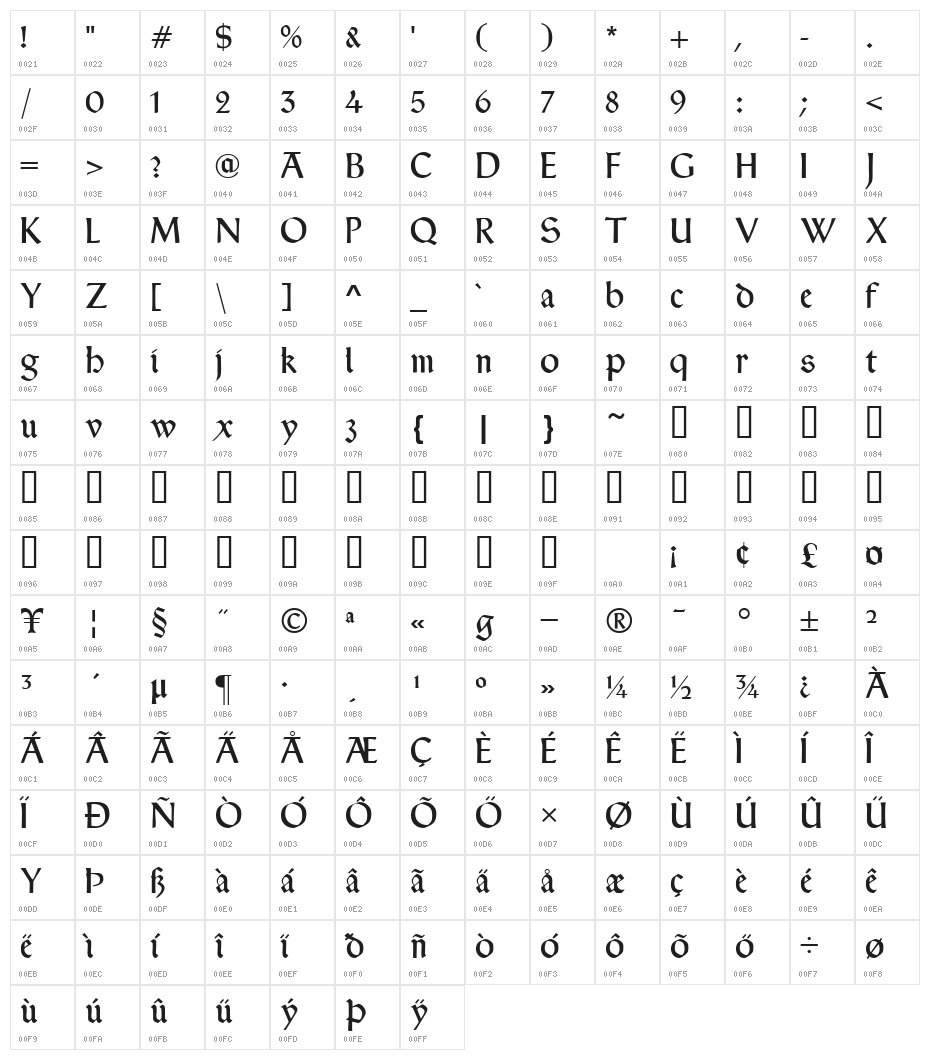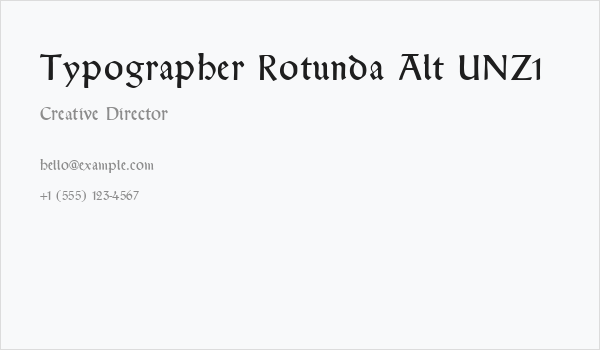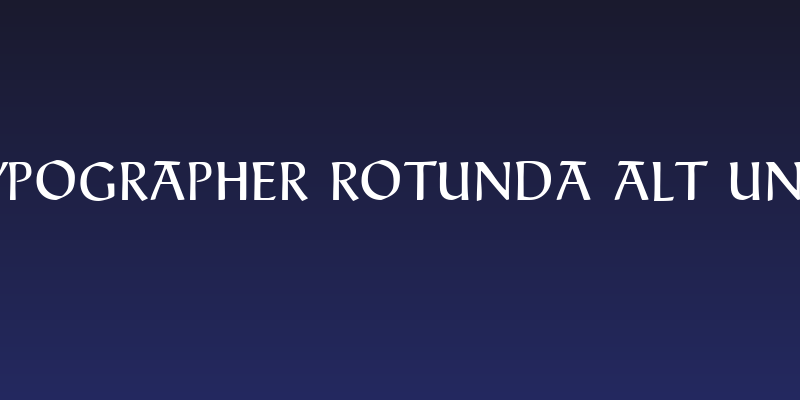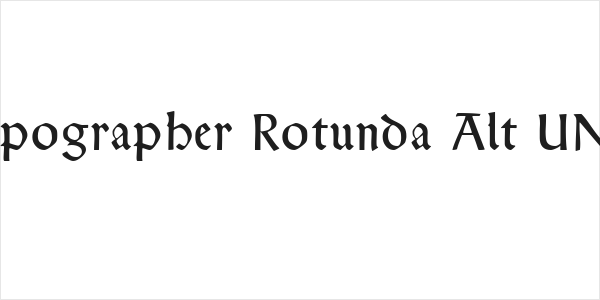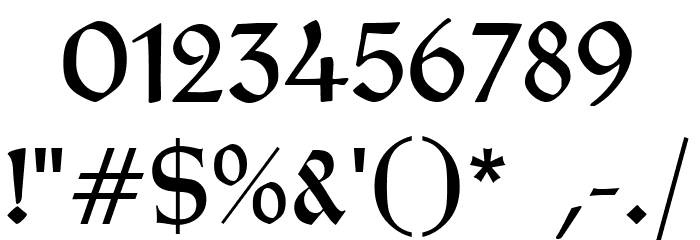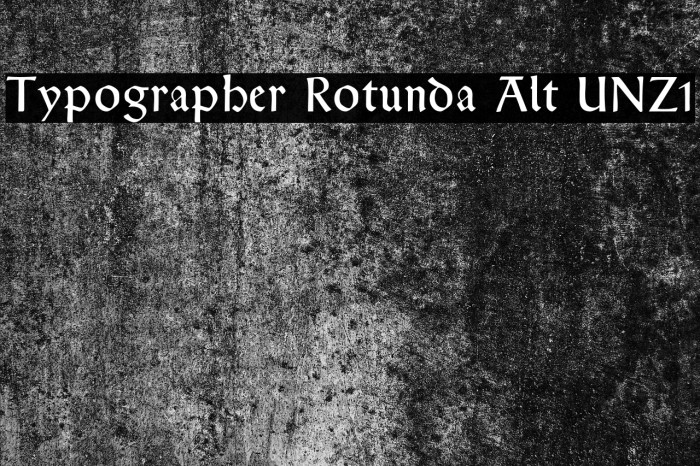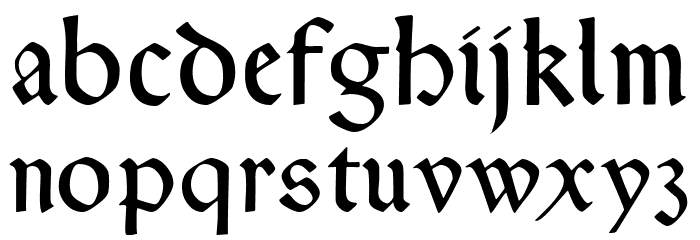
Typographer Rotunda Alt UNZ1 Font
Typographer Rotunda Alt UNZ1 Description
This font features a distinctive blend of traditional and modern elements, characterized by its sharp, angular strokes and a calligraphic influence. The uppercase letters exhibit a strong presence with their bold, slightly condensed forms, while the lowercase letters maintain a fluidity that suggests a handwritten style. The numerals are consistent with the overall aesthetic, offering a clear and legible appearance. Special characters are crafted with the same attention to detail, ensuring a cohesive look across all glyphs. This font's unique style makes it suitable for projects that require a touch of elegance and historical reference.
| Proposed Projects | Ideal for branding, invitations, historical themed designs, and editorial layouts. |